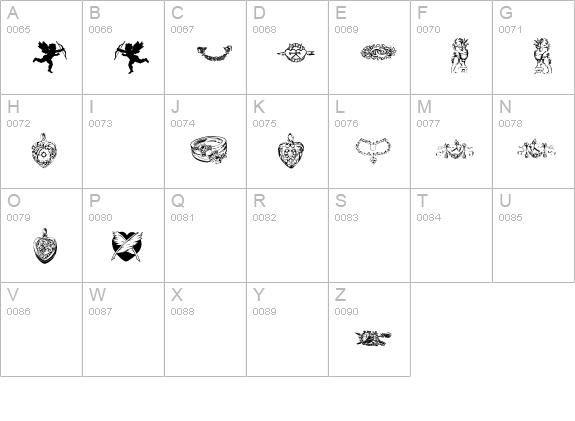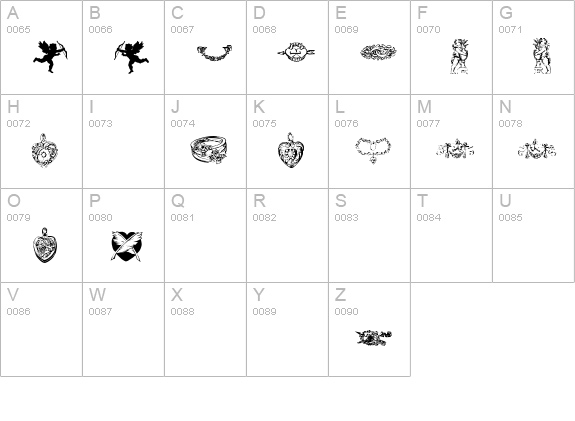
lpromantic1 Font Details
The lpromantic1 font is a beautifully crafted typeface that exudes elegance and charm. Its delicate curves and sophisticated design make it the perfect choice for adding a touch of romance to your projects. This font is free to download at FontsMarket.com, making it easily accessible for all your design needs. Whether you're creating wedding invitations, love letters, or any other romantic-themed design, lpromantic1 is sure to bring a touch of magic to your work. Embrace the beauty and grace of lpromantic1 font and let your creativity soar.